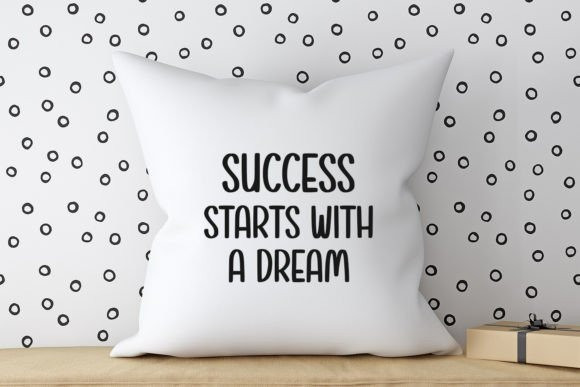
Strongmark Font
Strongmark Font is a simple handwritten sans serif.It is great for markers, t-shirt designs, quotes, mugs, tote bag designs, cards, banners, social media, and all your projects.